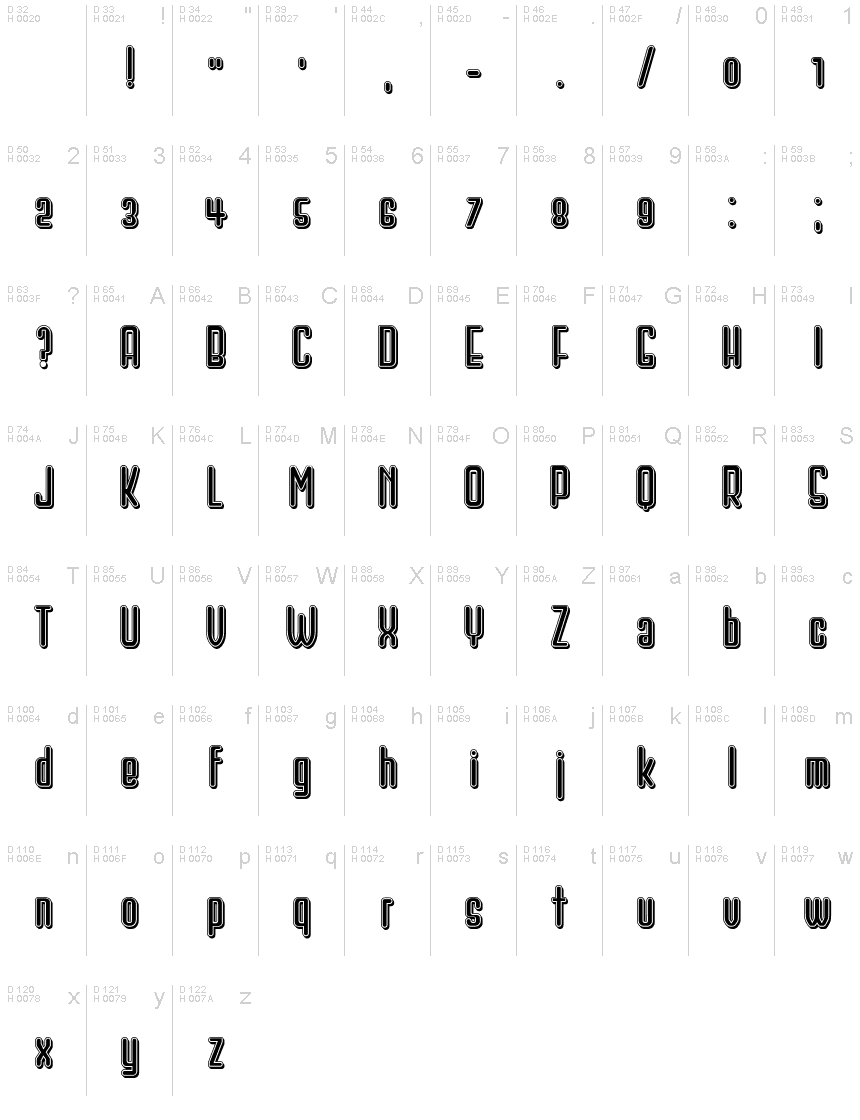
Daily Gifts 3D Filled Regular
Daily Gifts 3D Filled is a stunning semi-light, extra-condensed sans serif font from the masterful hands of Vladimir Nikolic. With its 3D filled style, it is perfect for creating captivating headlines and bold designs that demand attention. This versatile font family is suitable for a wide range of projects such as posters, logos, packaging design, branding materials, and more. Use Daily Gifts 3D Filled to add a touch of modernity and sophistication to your projects while making sure they stand out from the crowd!